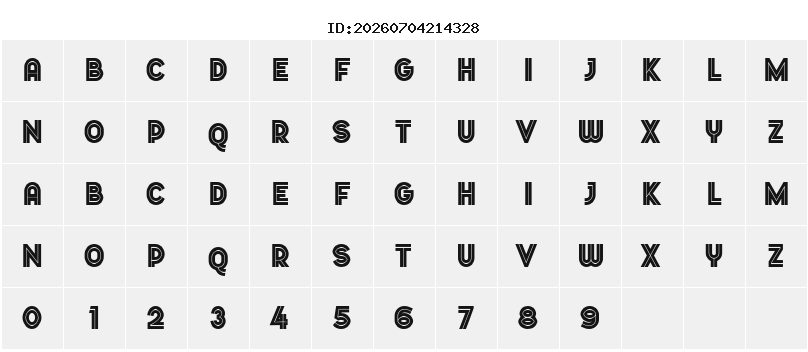
Dopest by MARSNEV Preview
About Dopest by MARSNEV.otf
Dopest by MARSNEV.otf is a modern, elegant sans-serif font designed for ultimate readability and visual harmony. Perfect for branding, headlines, web design, and print materials.